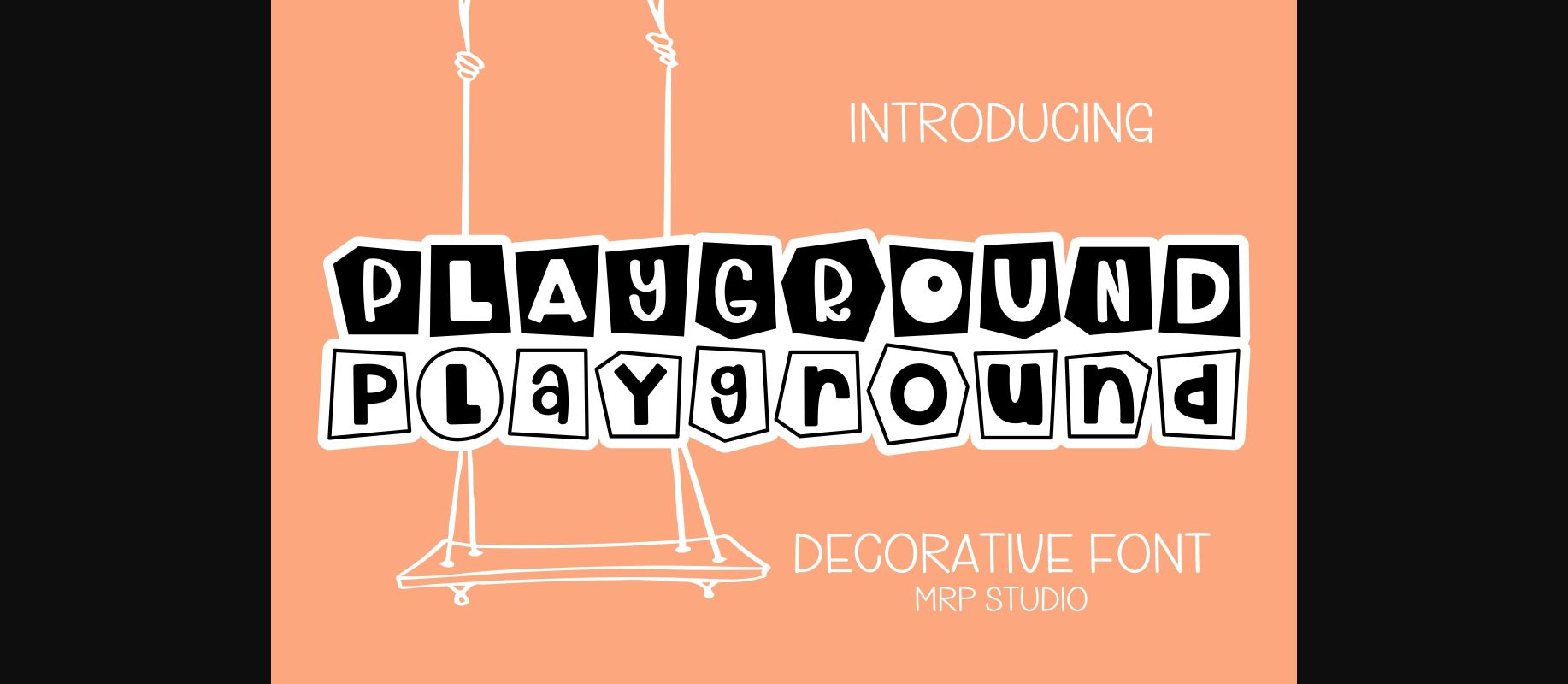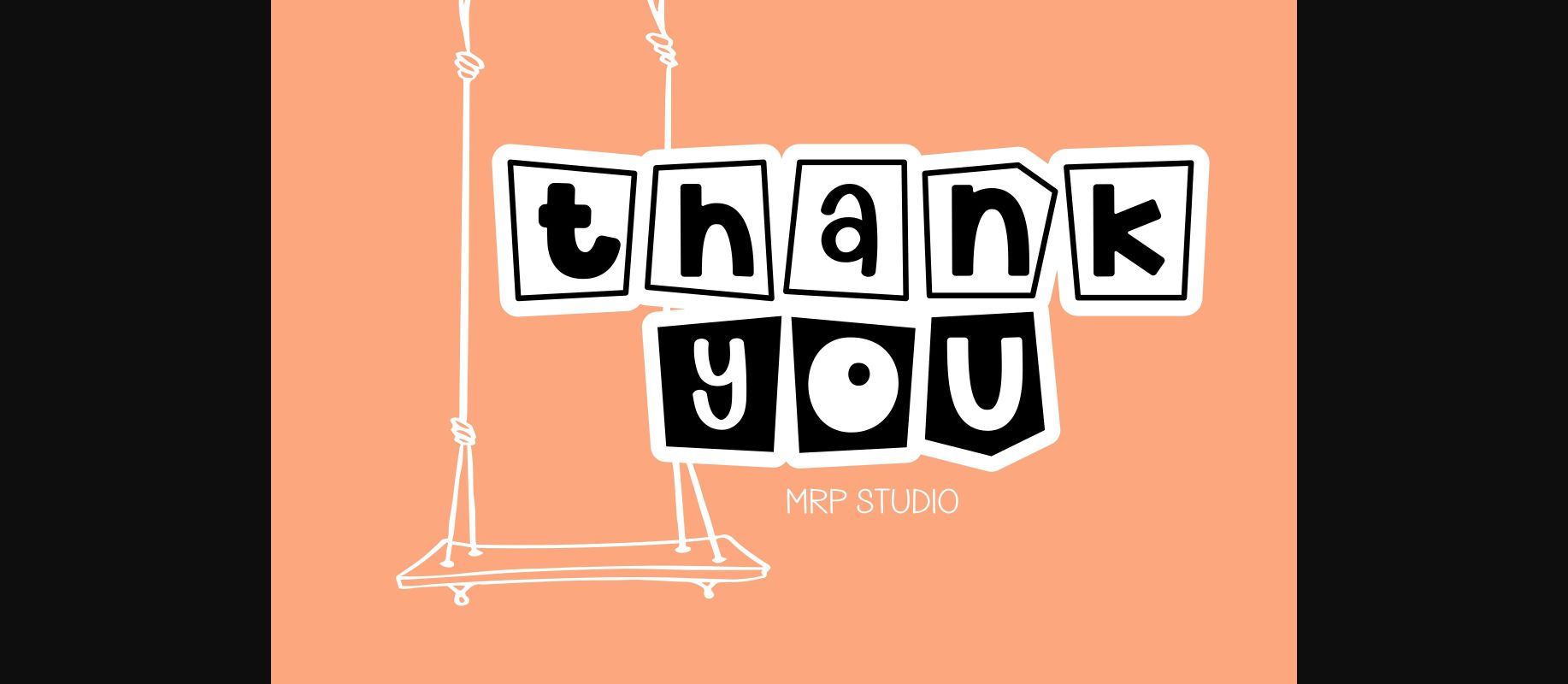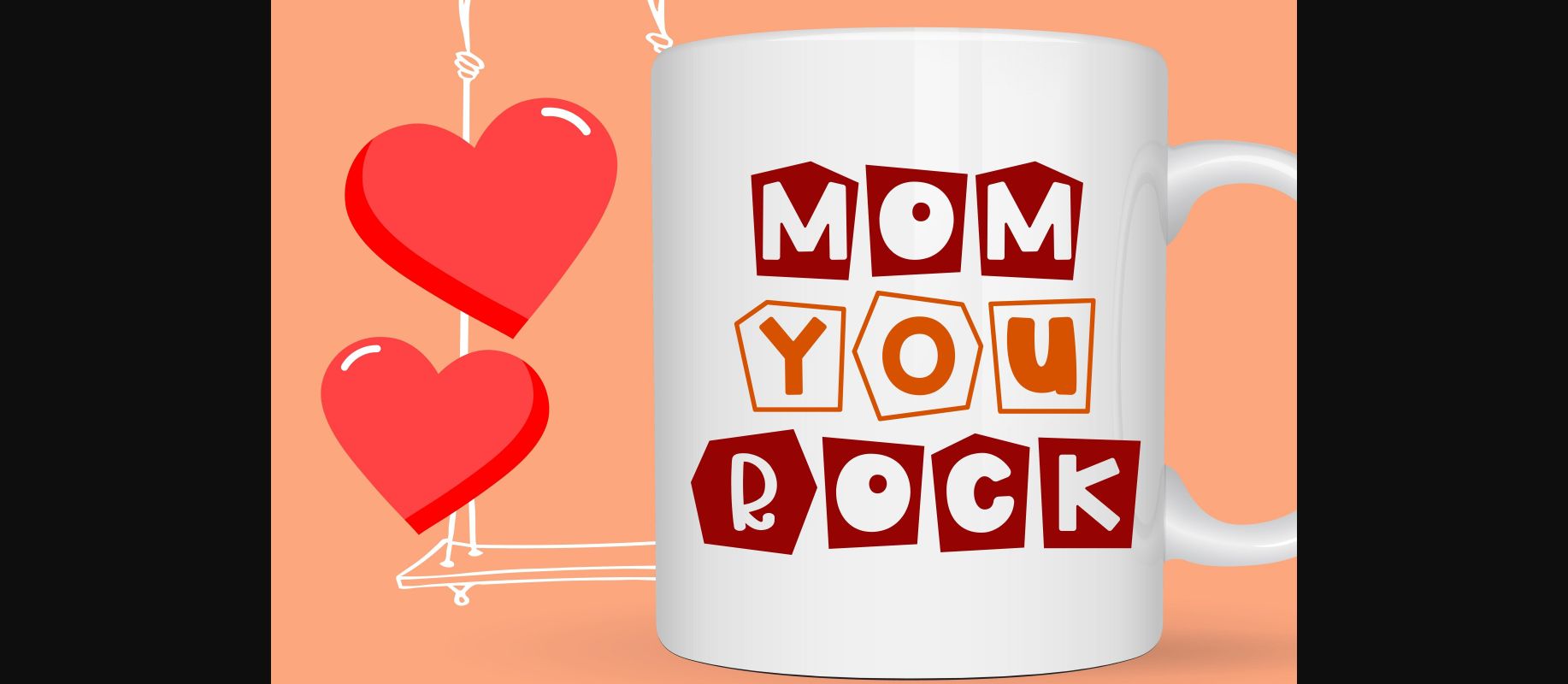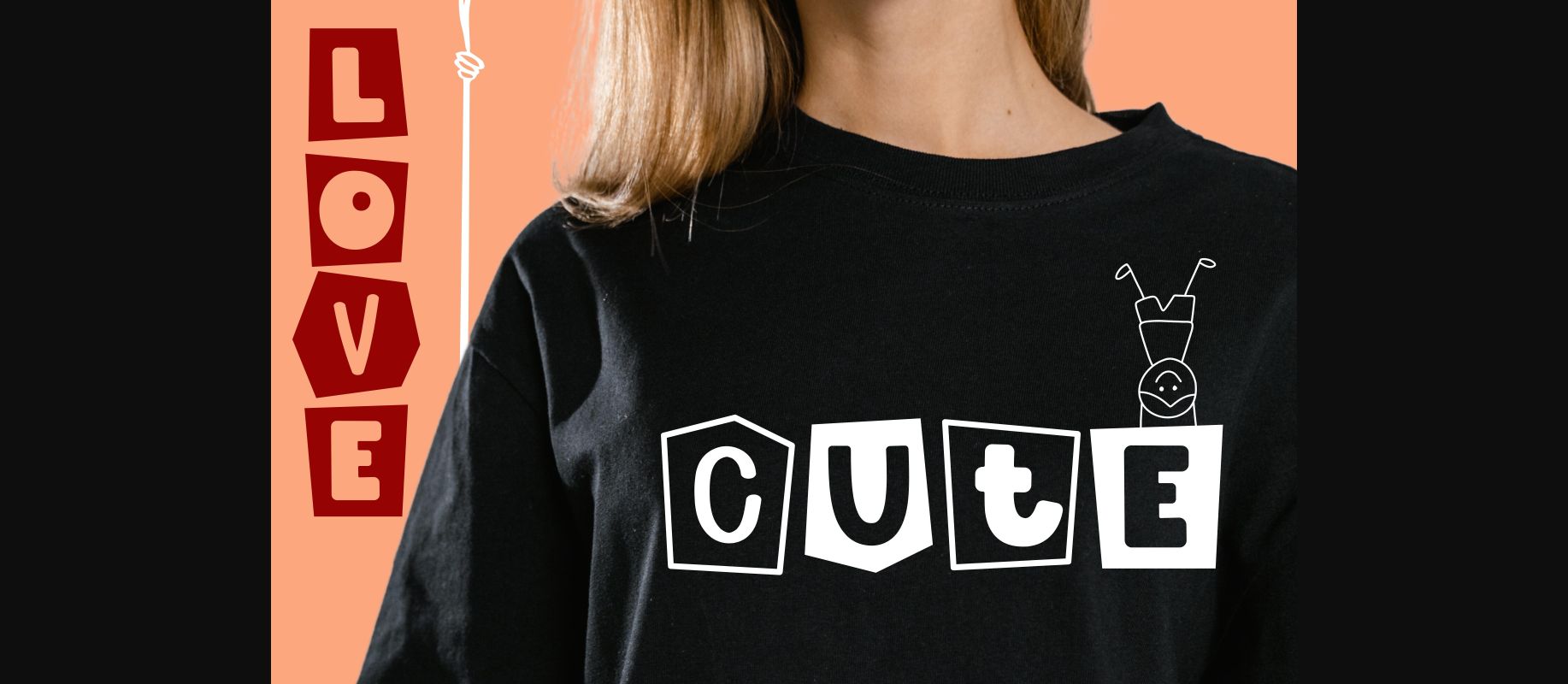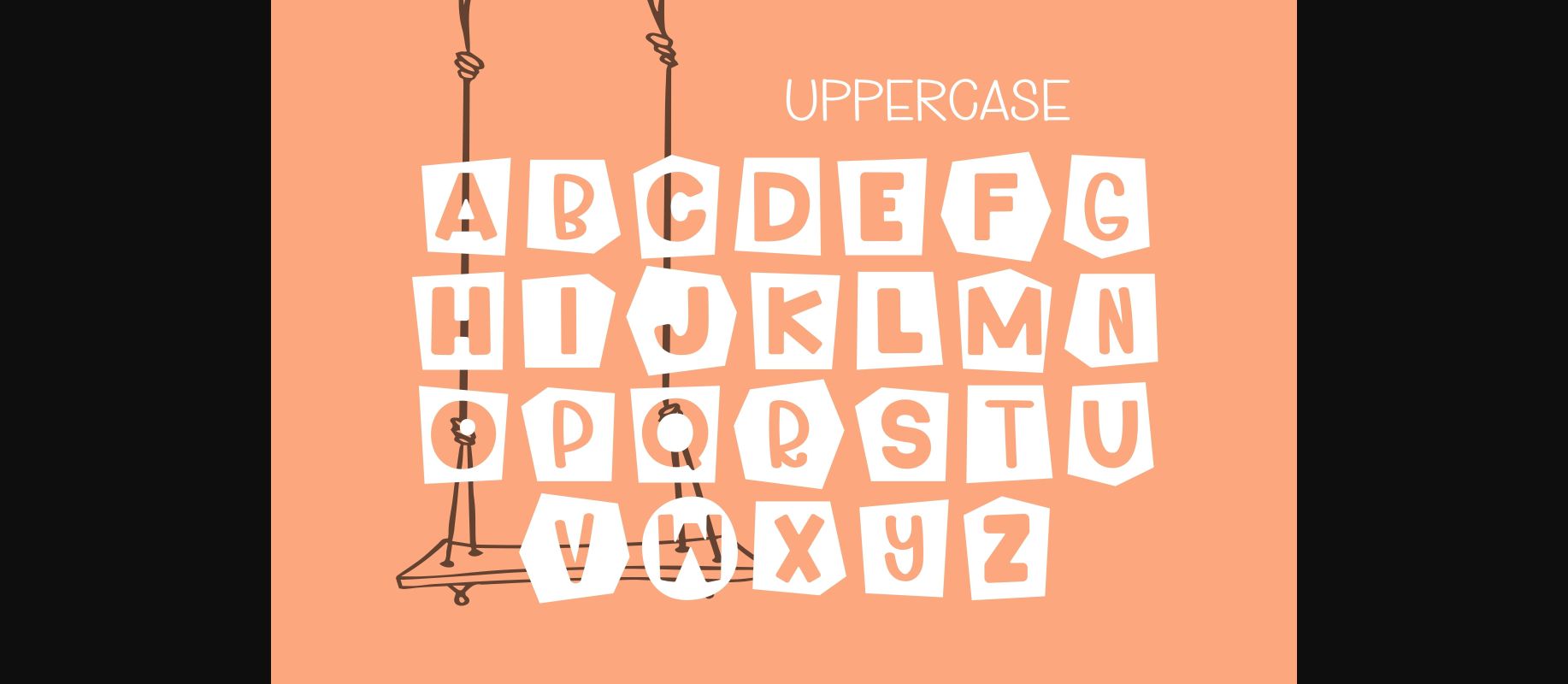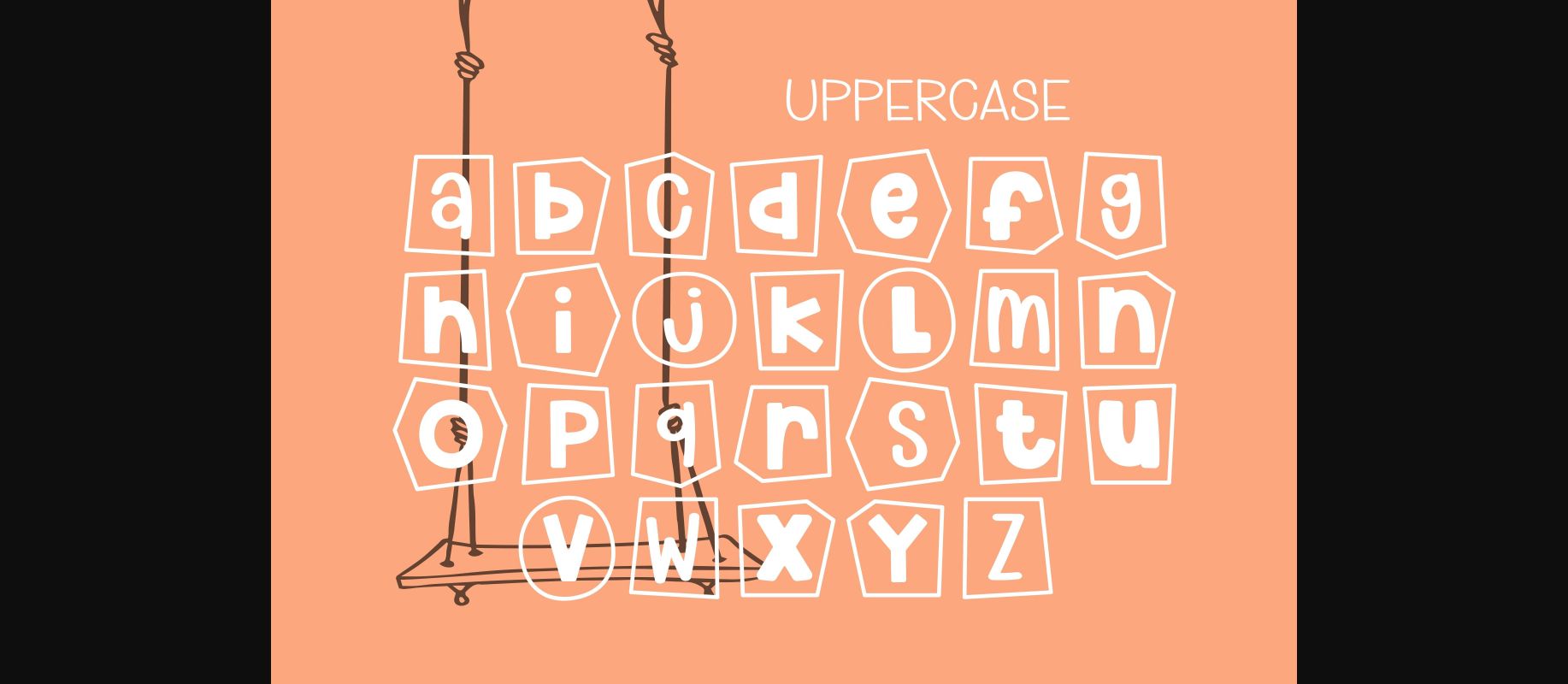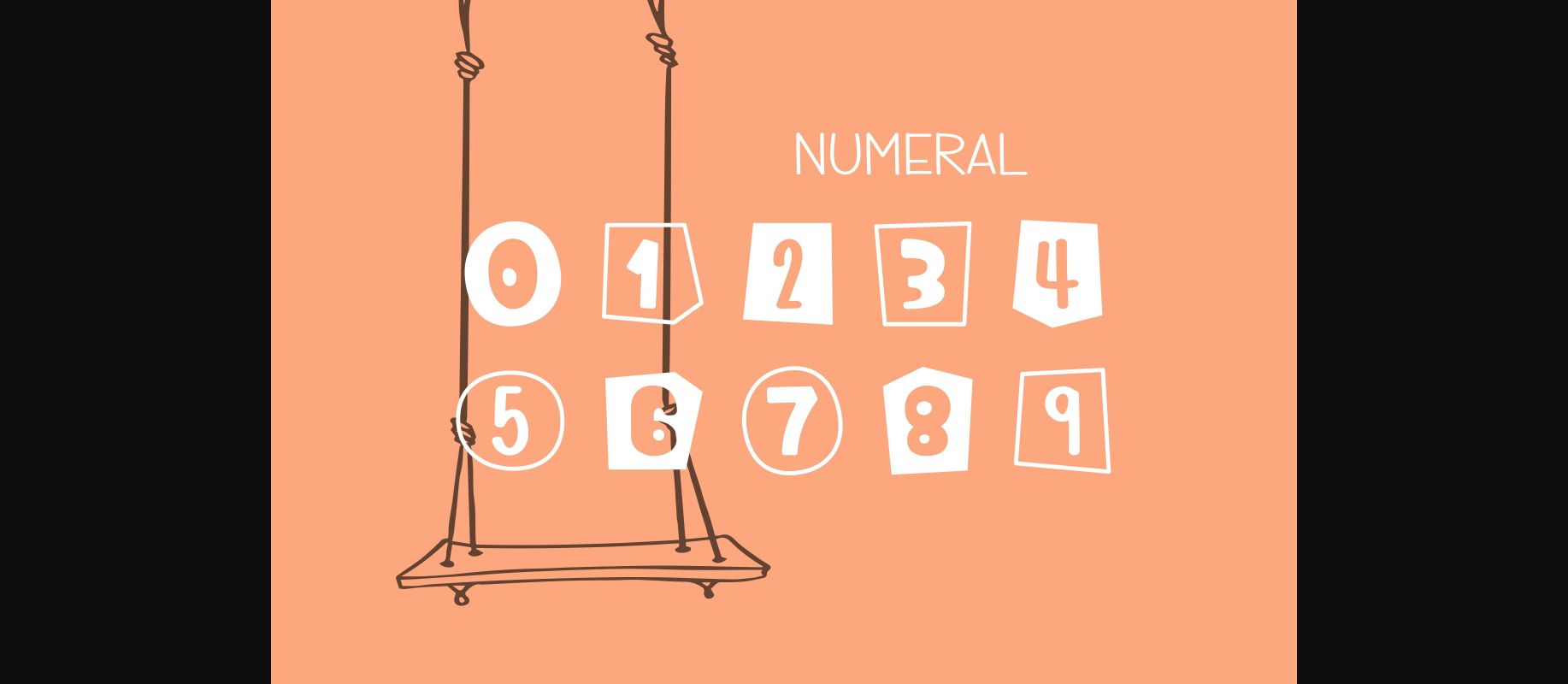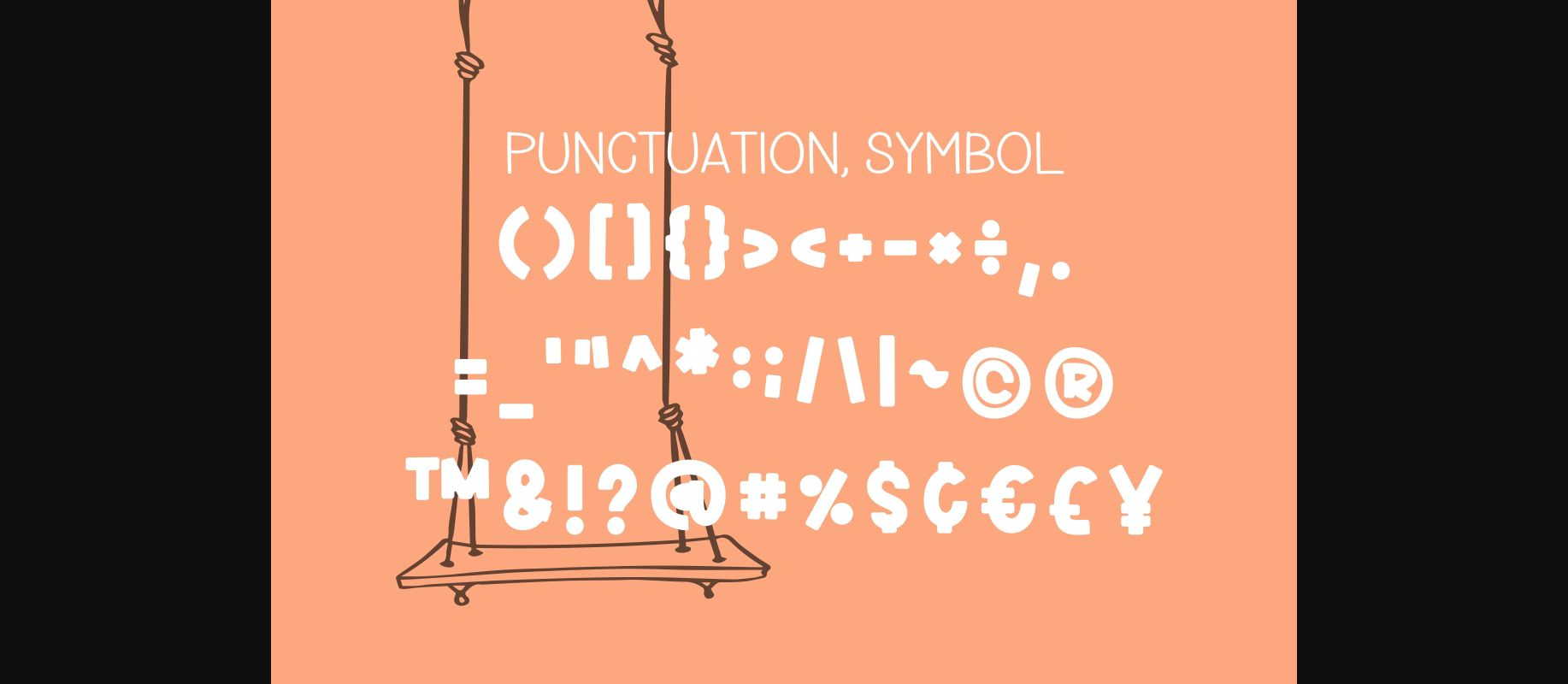
Playground Font
About Playground Font
Playground is designed in a playful and adorable decorative font style. It would be an awesome addition to your colorful child-related projects, mom projects, weddings, back-to-school, party decorations, invitations, posters, blogs, clothing, greeting cards, social media posts or anything that needs a friendly touch.